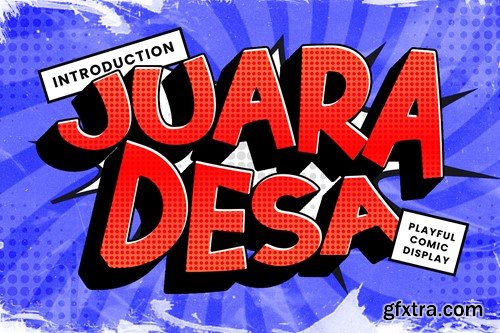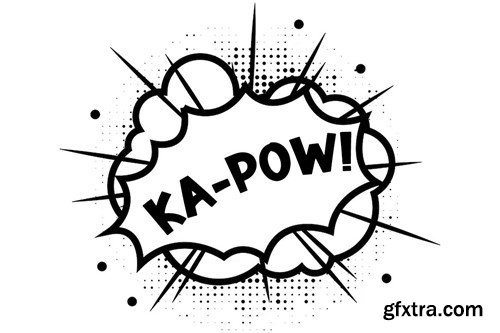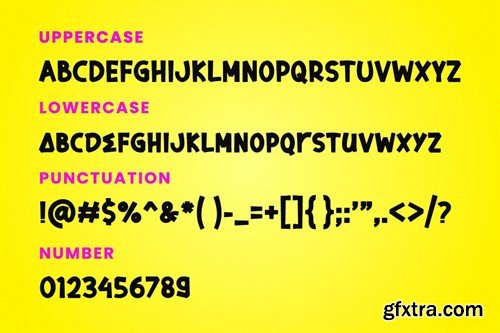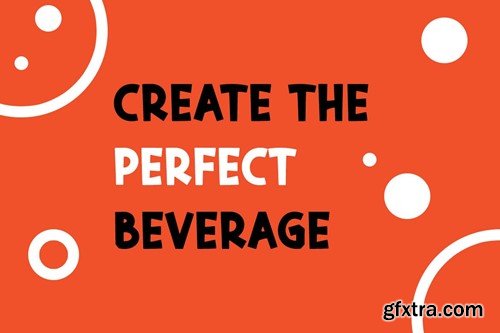
JUARA DESA - Playfull Comic Display Font LSAZMZS
JUARA DESA - Playfull Comic Display Font
JUARA DESA is a unique display typeface perfect for titles, large text, branding, logotypes & graphic design purposes such as posters, pamphlets, and advertisements. This letter font can be a great choice for creating amazing logos, promotional content, and marketing presentations that can bring uniqueness and freshness at its best.
• Uppercase and Lowercase letters
• Numbering and Punctuations